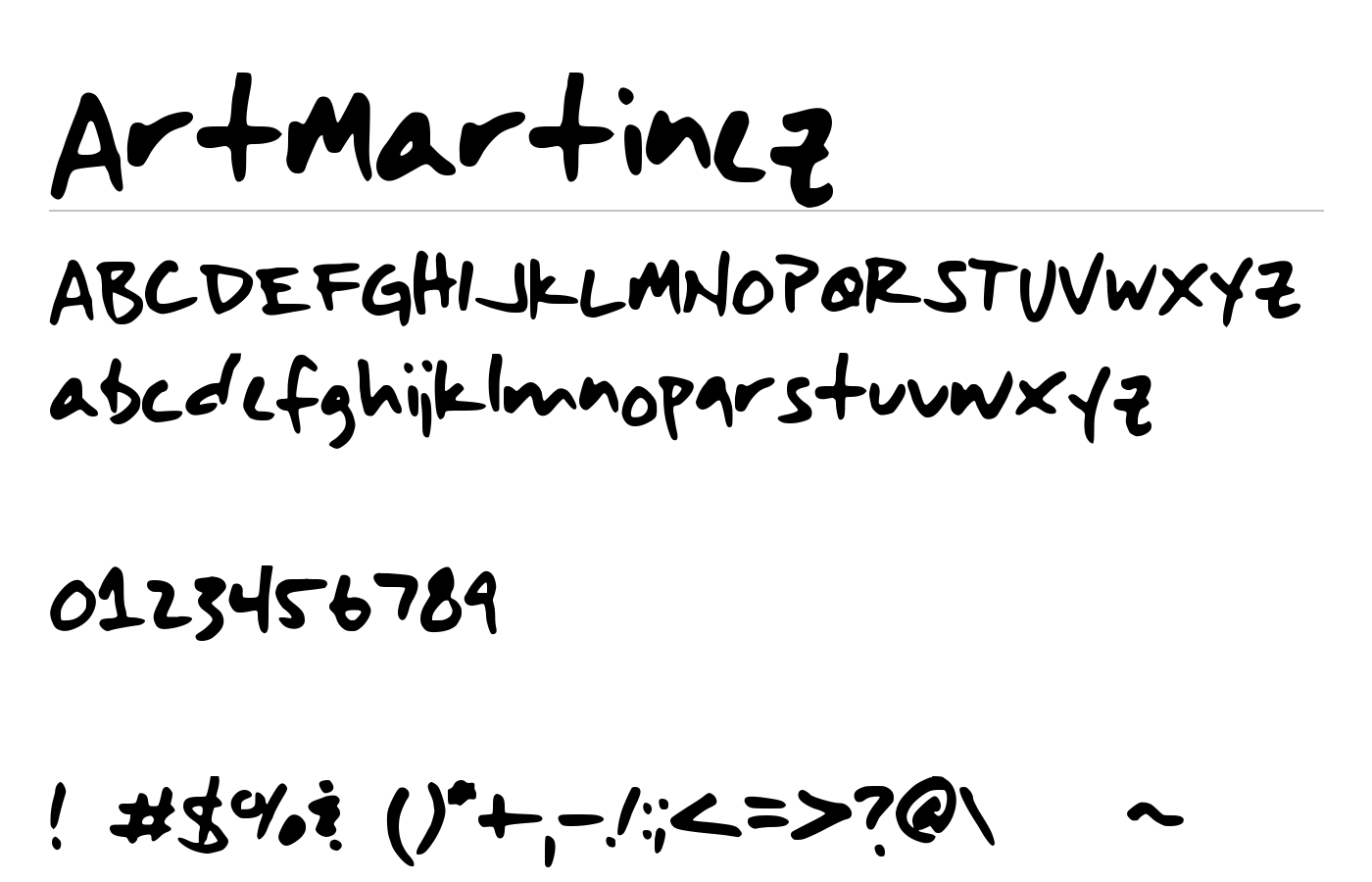
ArtMartinez is a casual, handwritten-style font that offers a playful and informal feel with its uneven strokes and slightly irregular shapes. Its lively, brush-like character makes it perfect for creative projects, personal branding, and designs that want to convey a friendly, approachable vibe. This font works best in headlines, logos, and invitations where a personal touch and energetic personality are desired.
ArtMartinez Font
About ArtMartinez Font